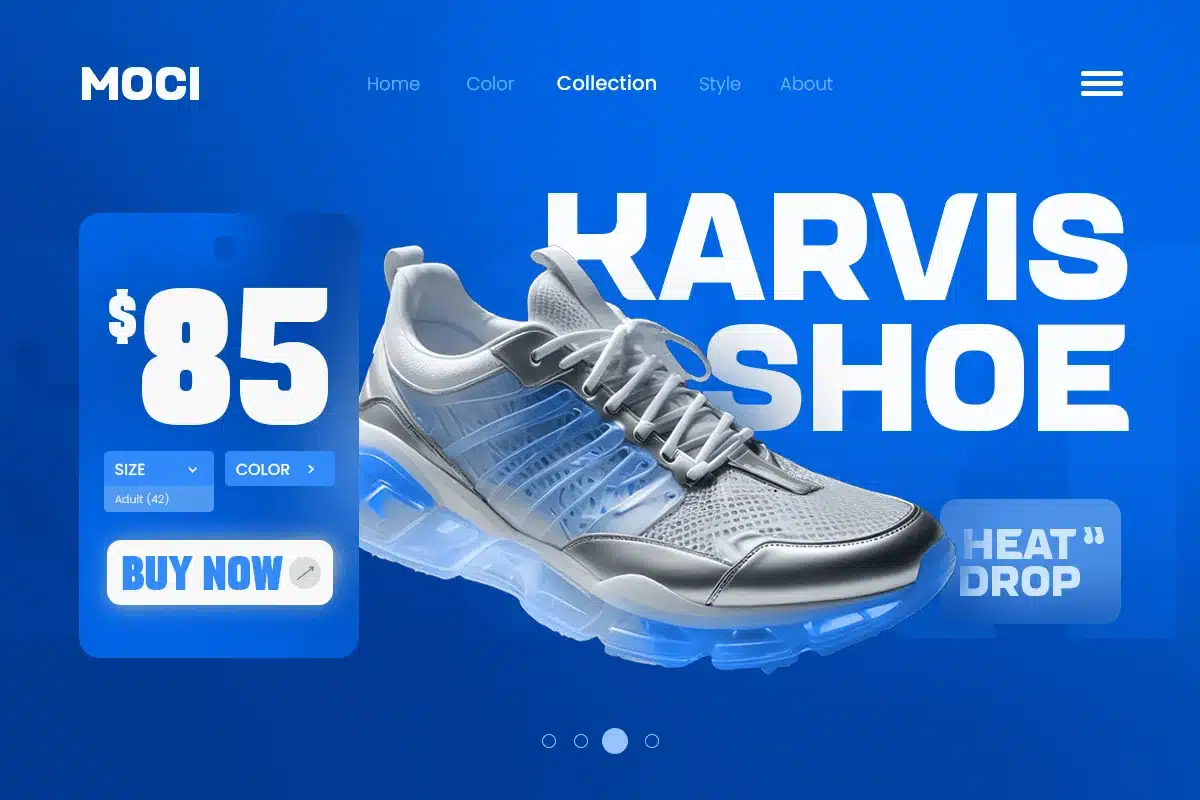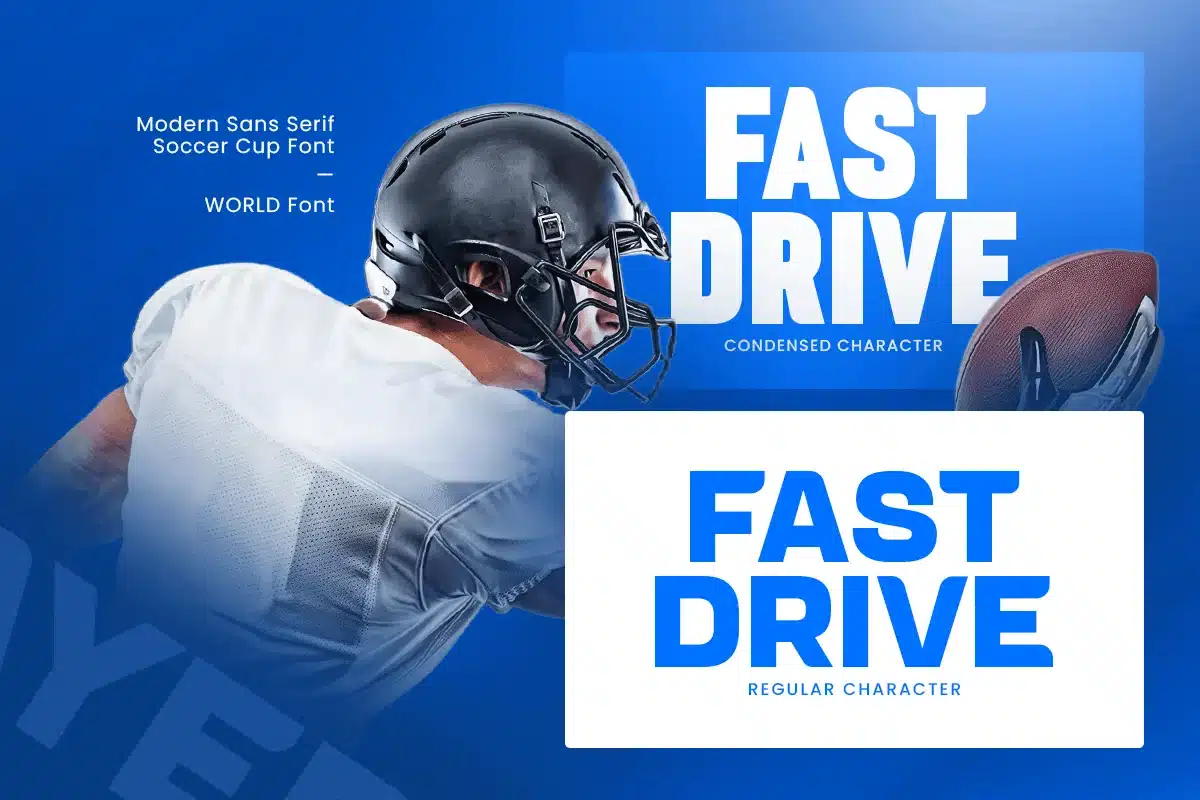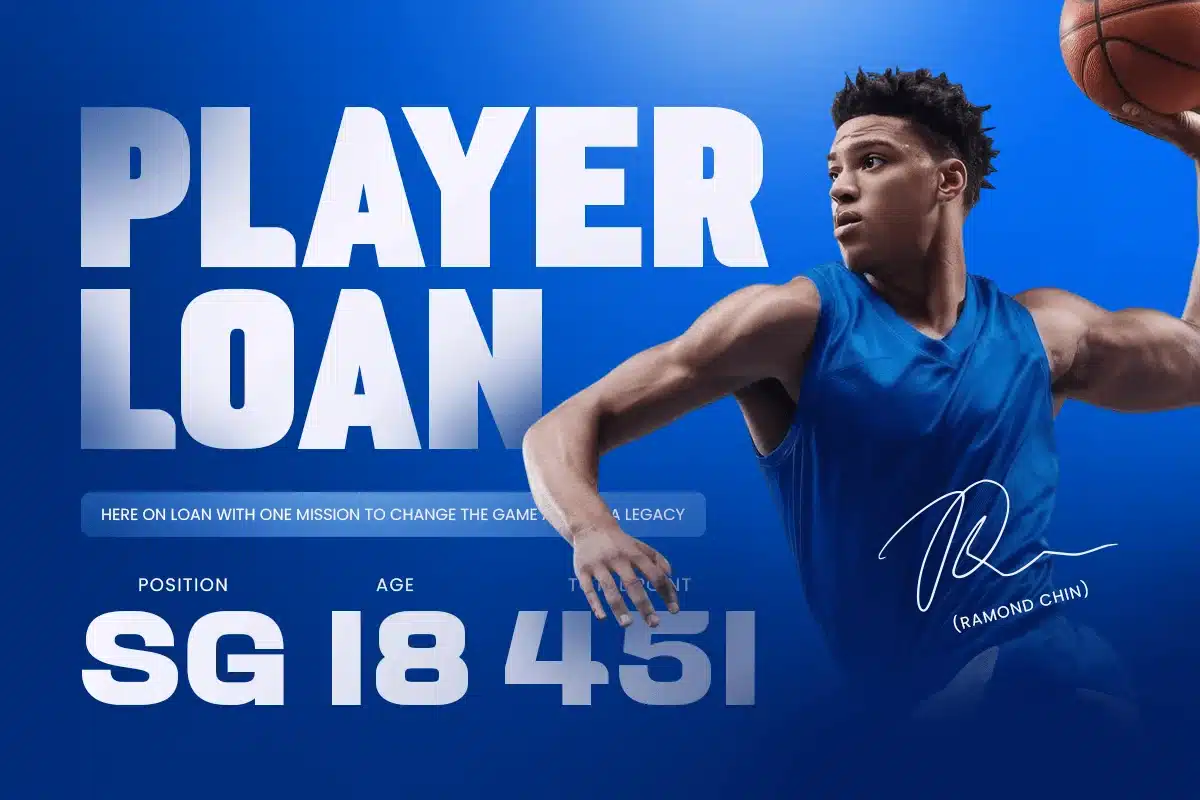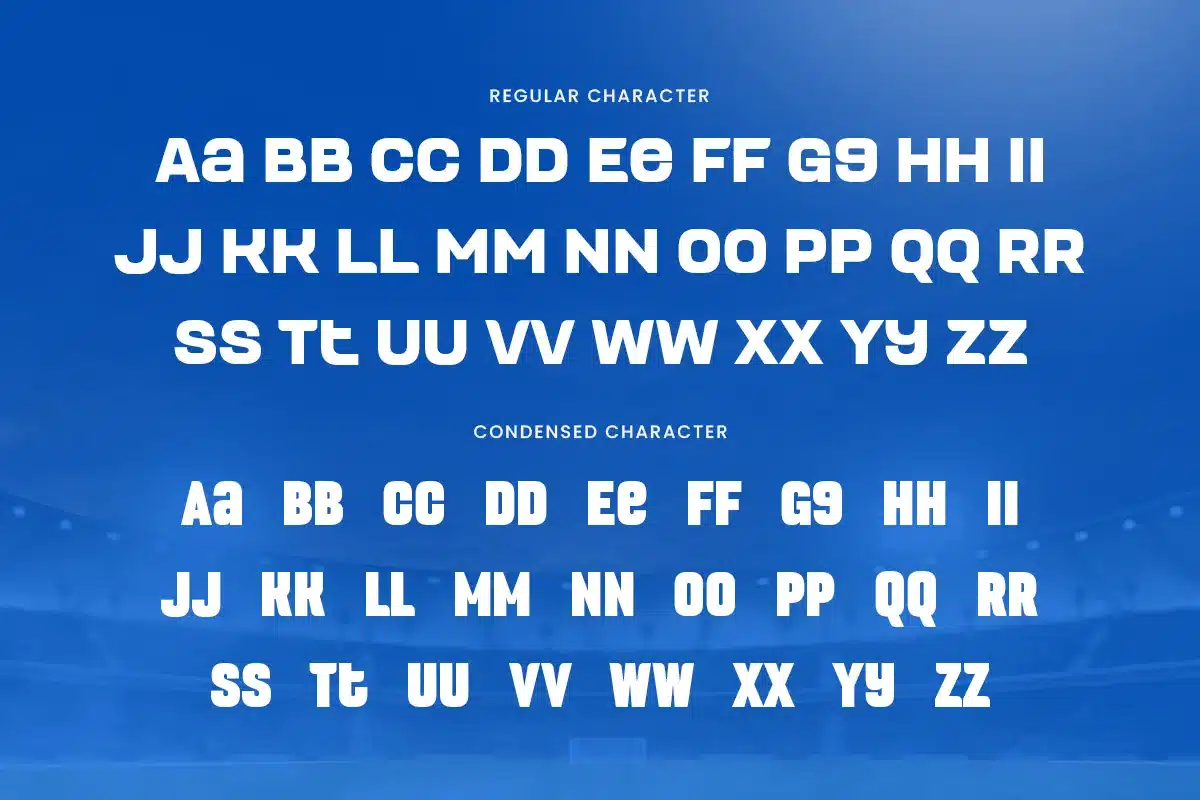
World – Modern Sans Serif Soccer Cup Font
WORLD is a modern sans serif soccer cup font designed to bring speed, strength, and competitive energy to your typography. With clean sans serif structure, bold athletic rhythm, and a sharp contemporary look, this typeface creates a sporty visual tone that feels powerful, modern, and instantly attention-grabbing.
Built for football-focused branding and display design, WORLD works beautifully across tournament posters, championship graphics, team logos, event banners, social media promos, website headers, sports campaigns, score-themed visuals, and promotional materials. Its clean sans serif form keeps every headline readable and impactful, making it ideal for both digital and print layouts that need motion and confidence.
Whether you’re creating soccer tournament branding, designing football event promotions, building a team identity, or crafting energetic sports visuals, WORLD provides a bold typographic foundation that makes every composition feel dynamic, competitive, and unforgettable.
Inspiration Behind WORLD
WORLD is inspired by modern football branding and championship sports typography—where strong sans serif forms, athletic rhythm, and fast visual momentum define the atmosphere. The design focuses on clean sporty structure and bold impact to support soccer campaigns, tournament visuals, and competitive identity systems with a fresh modern edge.
WORLD Font Features:
- Modern sans serif letterforms with bold soccer-inspired character
- Prepared with two styles: regular and condensed style inside
- Perfect for sports branding, tournament posters, and championship headlines
- Strong readability for event banners, promos, and competitive visuals
- Clean athletic structure for energetic football-themed design
- OpenType features for polished professional typesetting
- Soccer tournament branding and football campaign visuals
- Championship posters, event banners, and sports promotions
- Team logos, fan content, and athletic identity systems
- Website headers, score-themed graphics, and digital sport campaigns
- Bold headlines, promo materials, and modern competitive branding
Bring championship energy to your visuals with WORLD—a modern sans serif soccer cup font made for bold athletic impact. ⚽✨